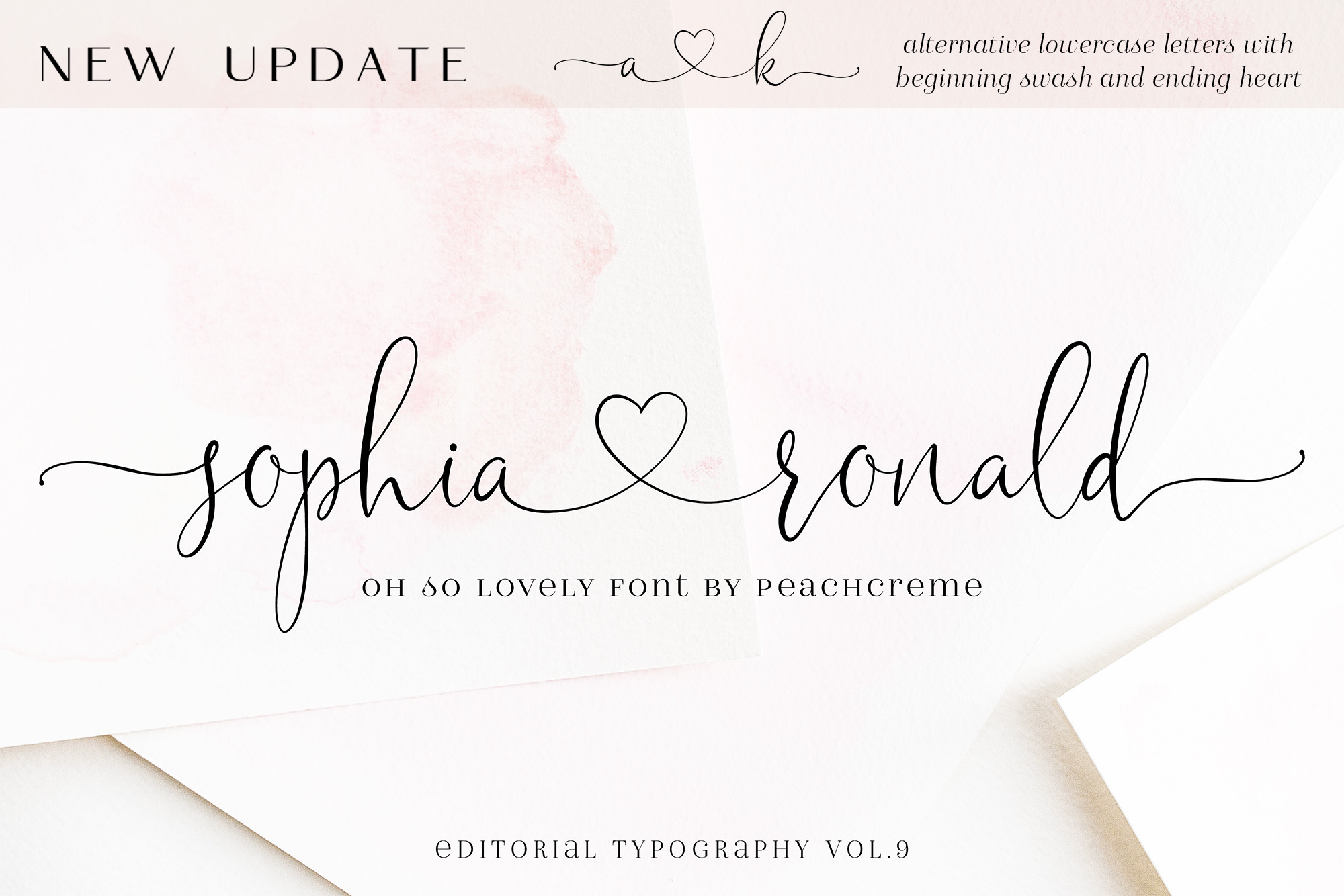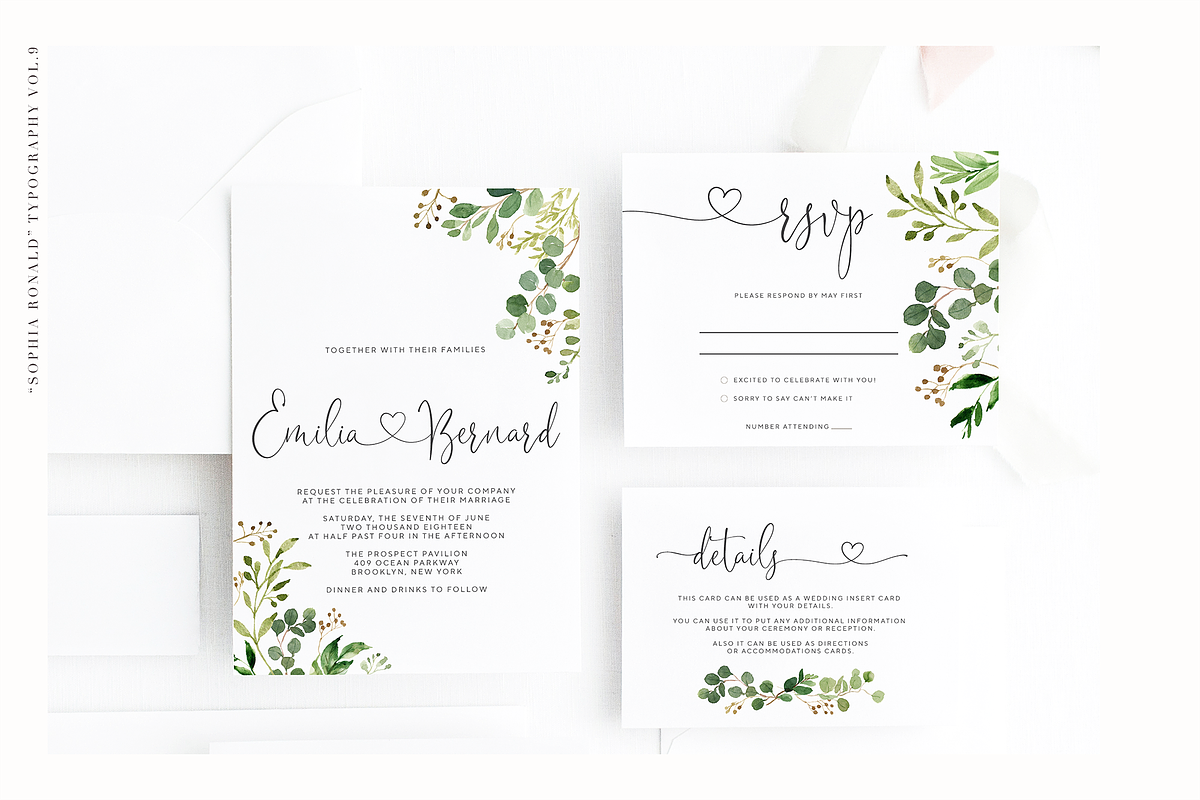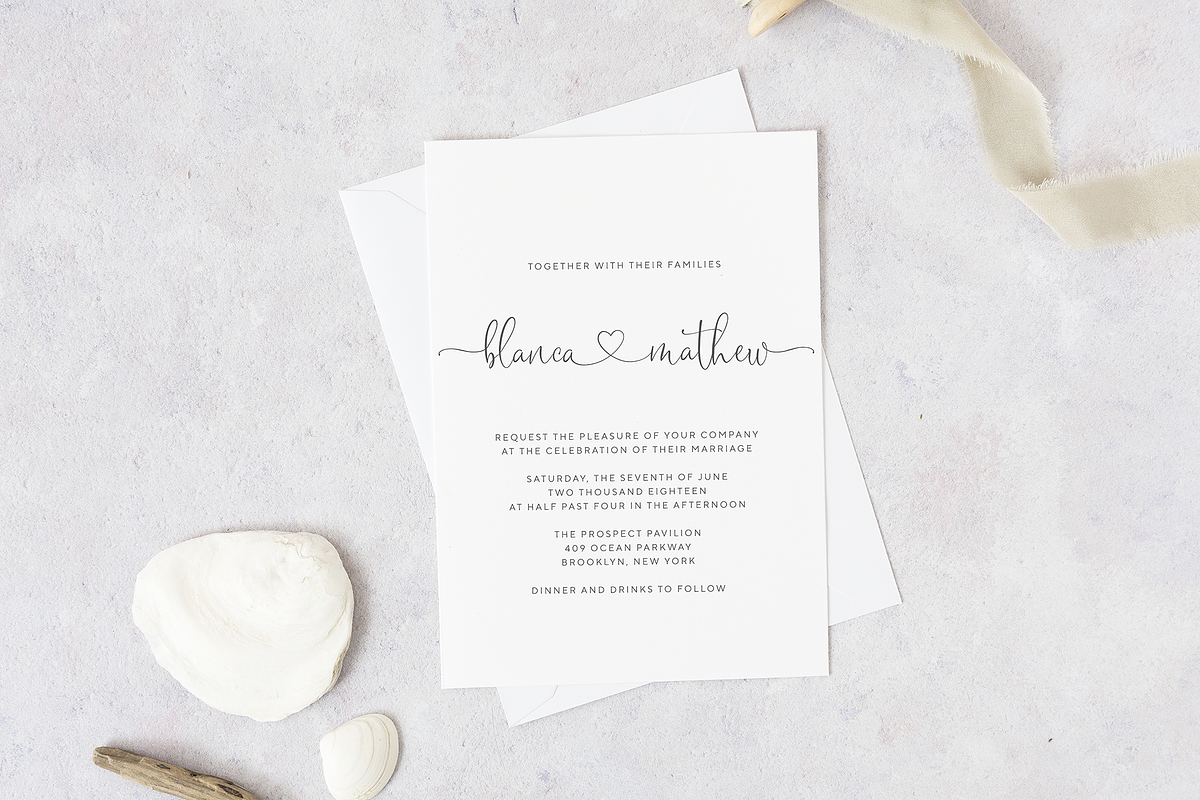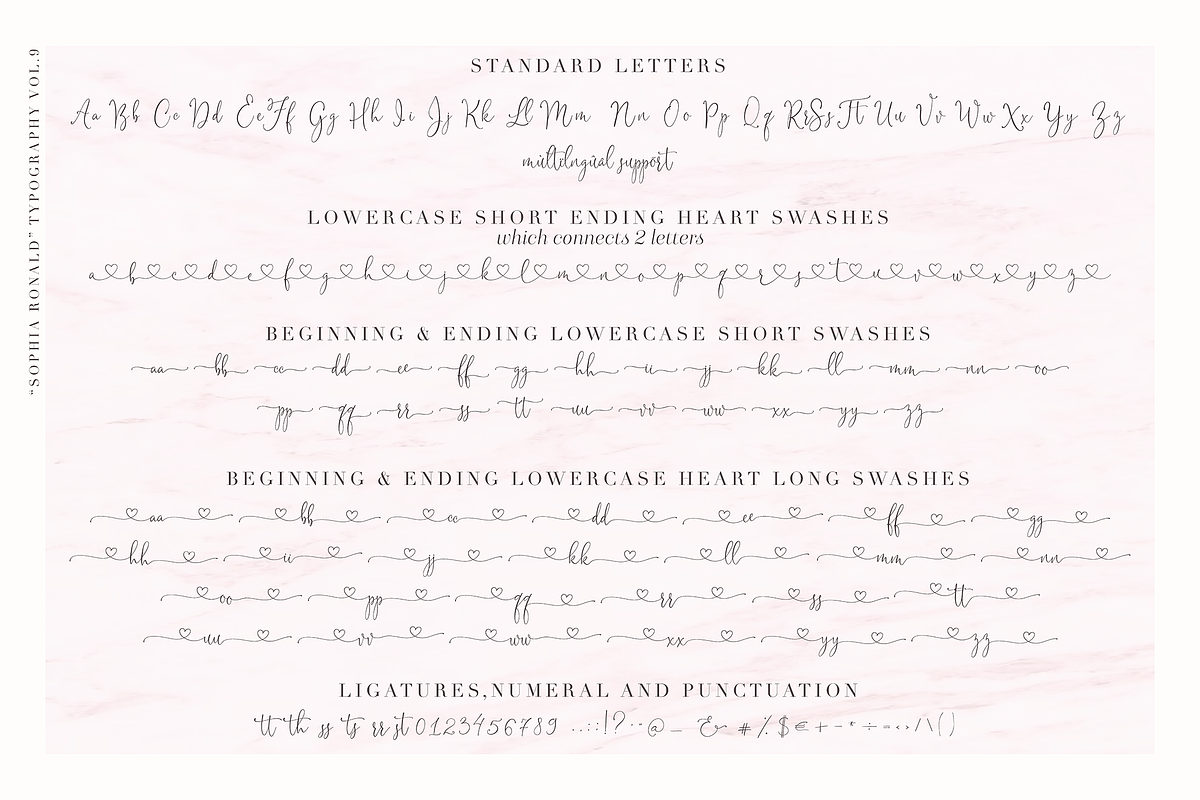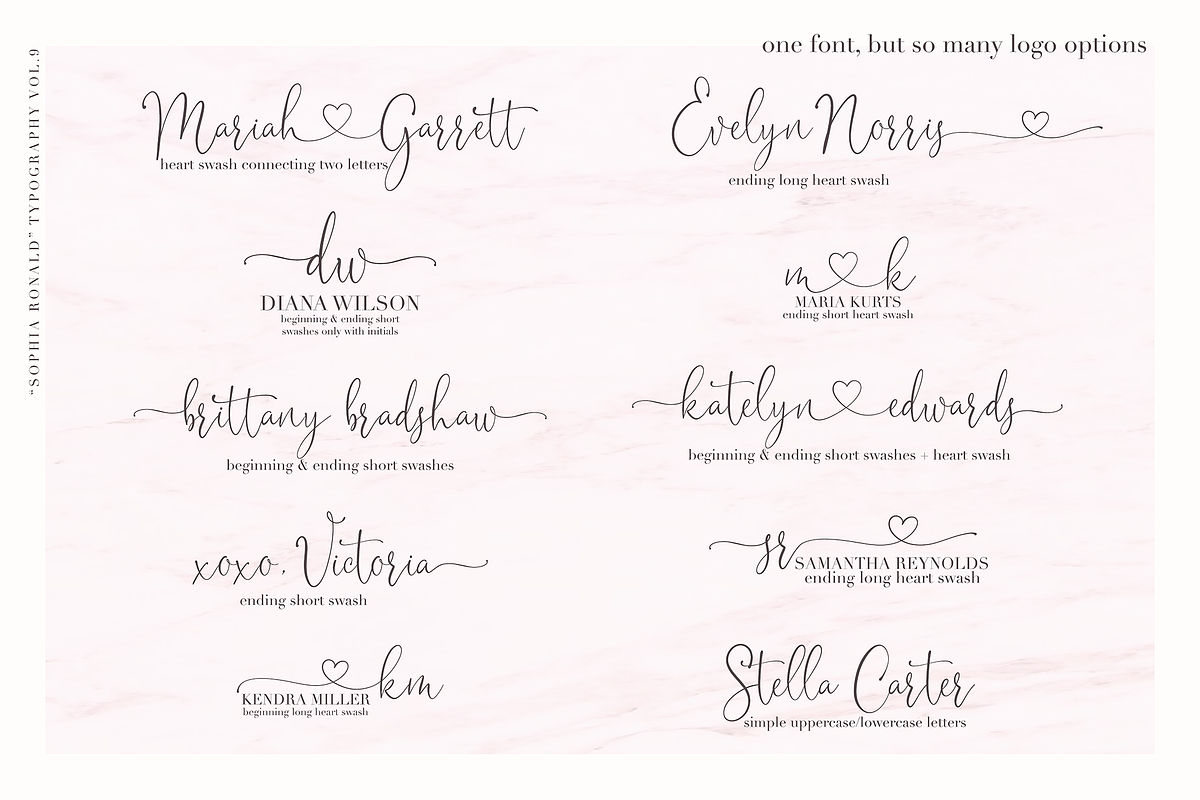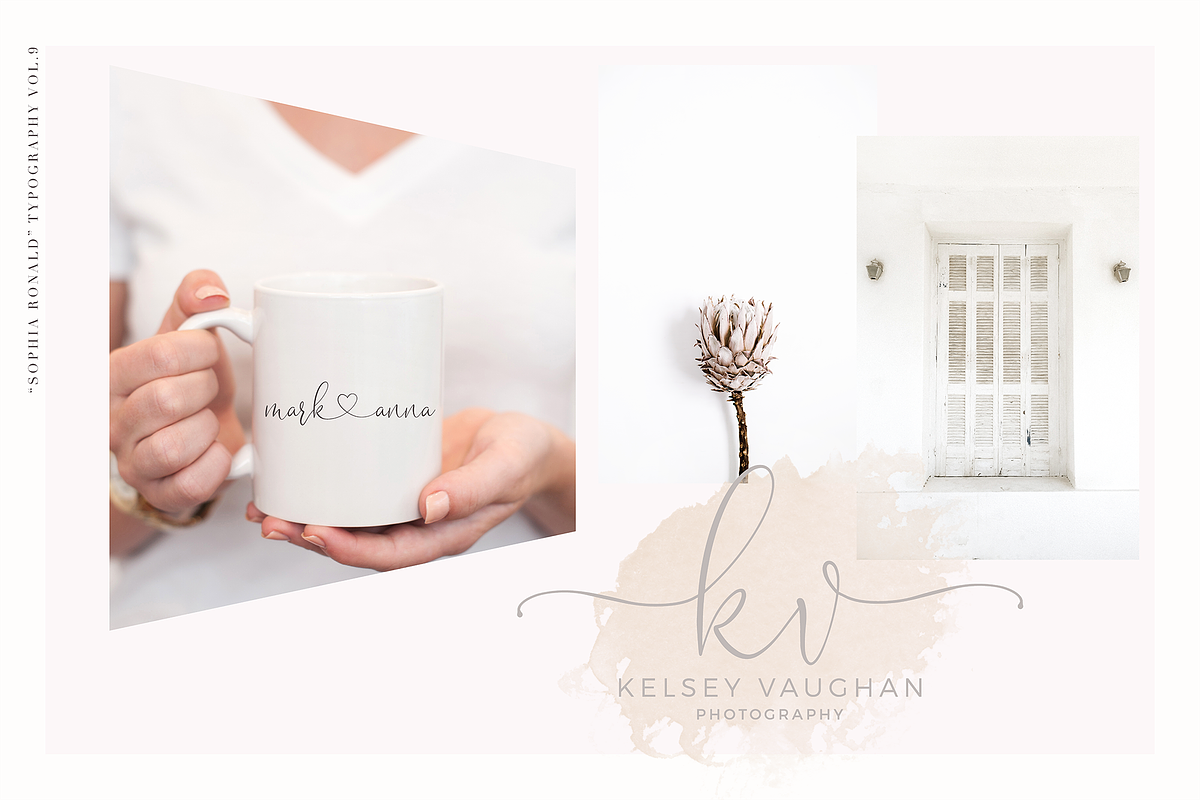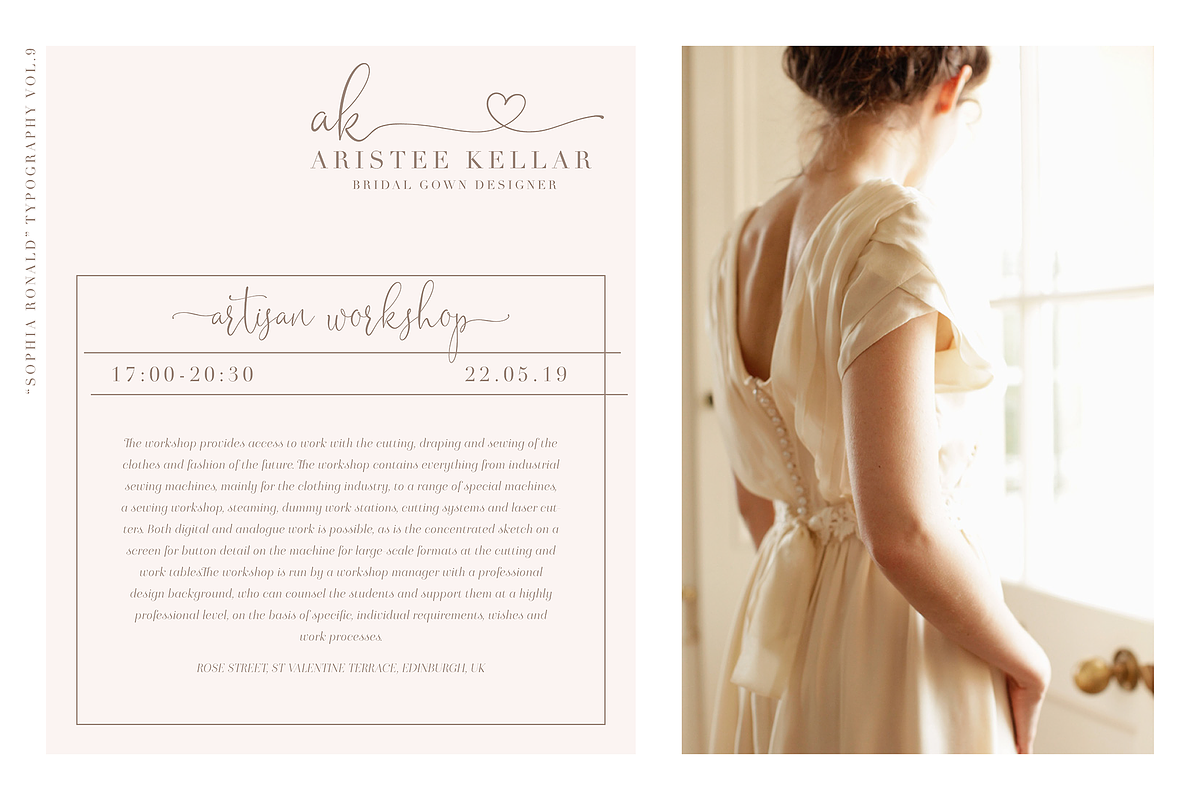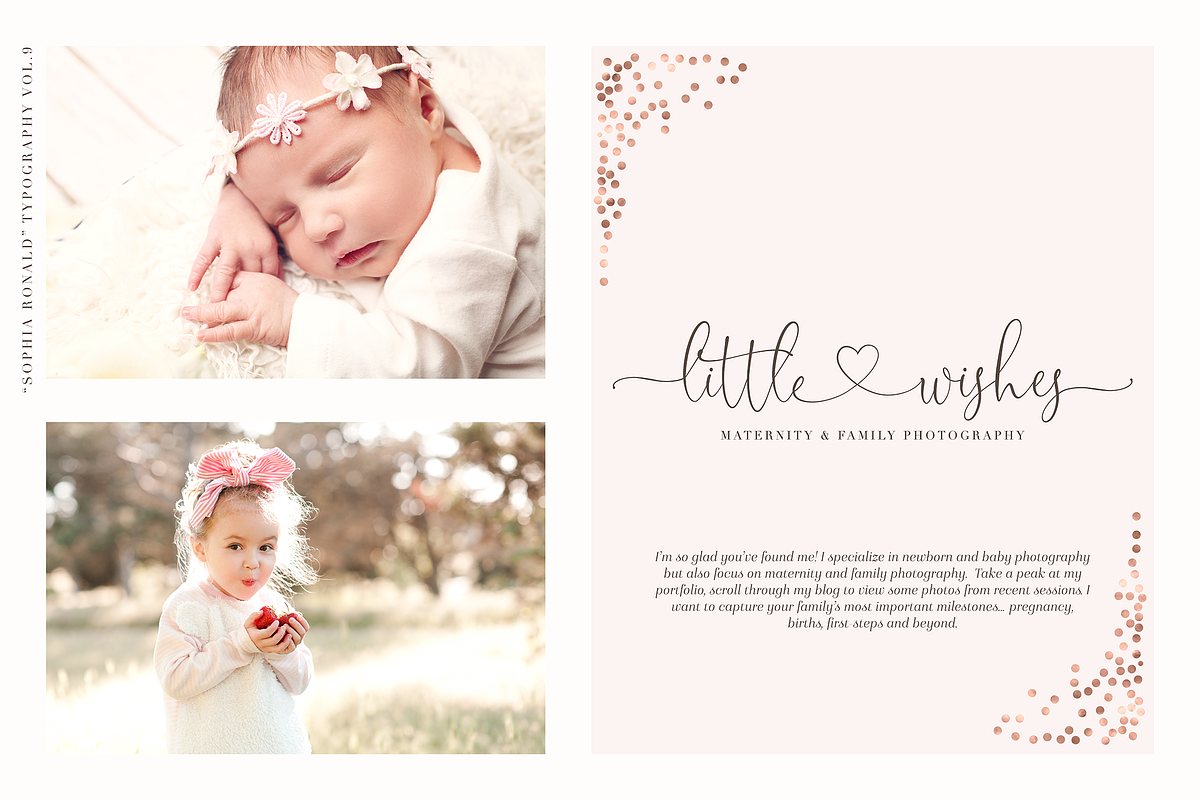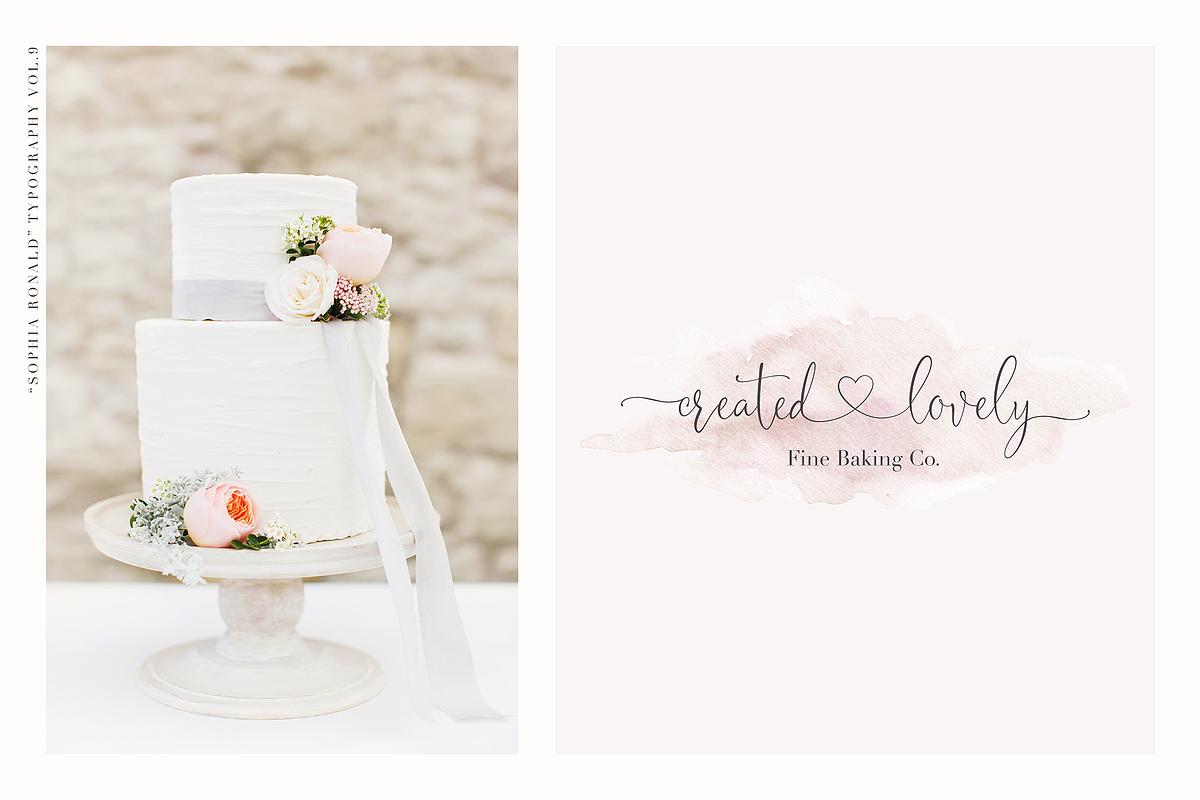
Sophia Ronald // Lovely Script Font
After receiving multiple feedback about making ligatures for "heart" alternatives, we updated our font. Following changes:-now you can type all swashes from your keyboard.
Use the following combos:
short lowercase beginning swash
type: -a (hyphenlowercase letter)
For example: -samantha -victoria -abigail
short lowercase ending swash
type: a- (lowercase letterhyphen)
For example: samantha- victoria- abigail-
letter with connecting heart
type: a&a/A ( lowercase letter&lowercase letter/uppercase)
For example: jack&chloe Sophia&Ronald
long lowercase beginning heart swash
type: %a (percentlowercase letter)
For example: %samantha %victoria %abigail
long lowercase ending heart swash
type: %a (lowercase letterpercent)
For example: samantha% victoria% abigail%
initials connected with heart
type: -a&a- (hyphenlowercase letter&lowercase letterhyphen)
For example, -b&k- -m&d- -a&s-
- was added new alternative lowercase letters with beginning swash and ending heart
Sophia Ronald is a crème de la crème modern calligraphy font with handwritten, sophisticated flows. It is full of hearts and glyphs:). It is perfect for branding, wedding invites, and cards.
"Sophia Ronald" includes a full set of lovely uppercase and lowercase letters, multilingual symbols, numerals, punctuation and ligatures. Also it includes: -short lowercase beginning and ending swashes -lowercase ending heart swashes, which serve to connect two words or letters (This is so perfect for invitations, monograms) -long lowercase beginning and ending heart swashes.
The font has a smooth texture, so it would be perfect for all types of printing techniques+you can do embroidery, laser-cut, gold foil, etc.